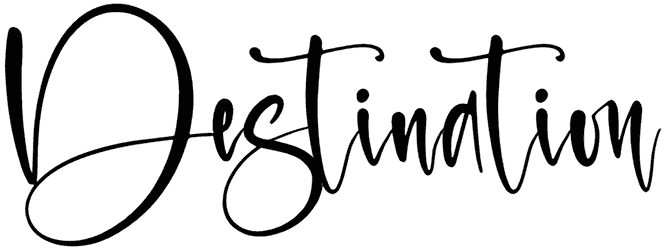
Destination Font
Timeless, sturdy, precise, and delicate are the best possible words for describing a lovely script font, the same as the Destination that comes with rounded and angular letters.